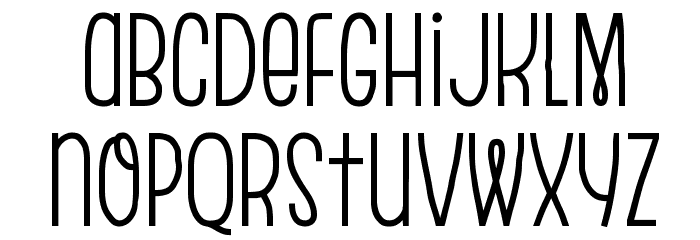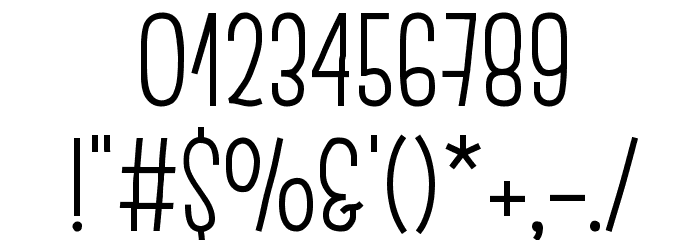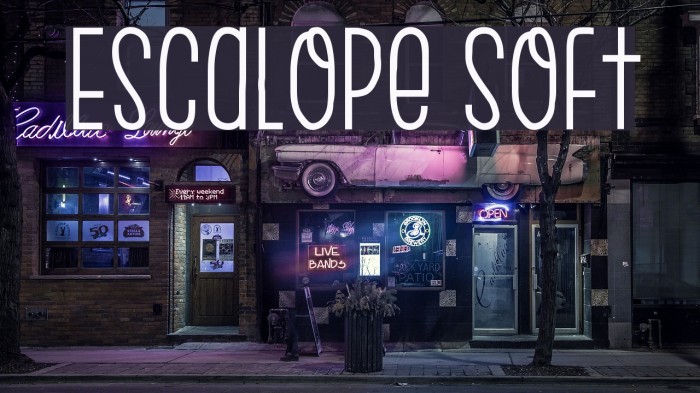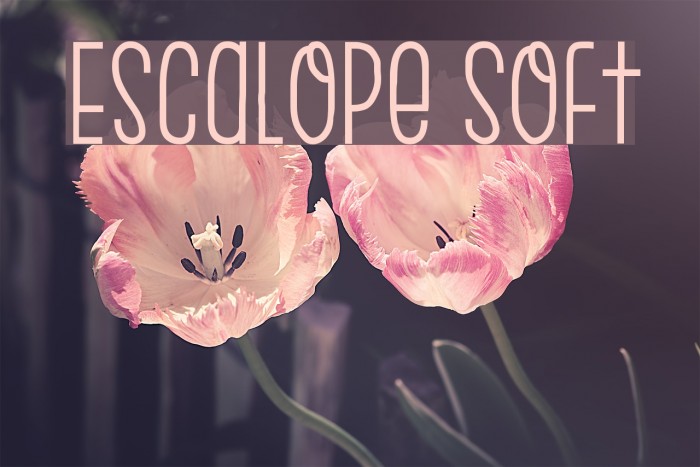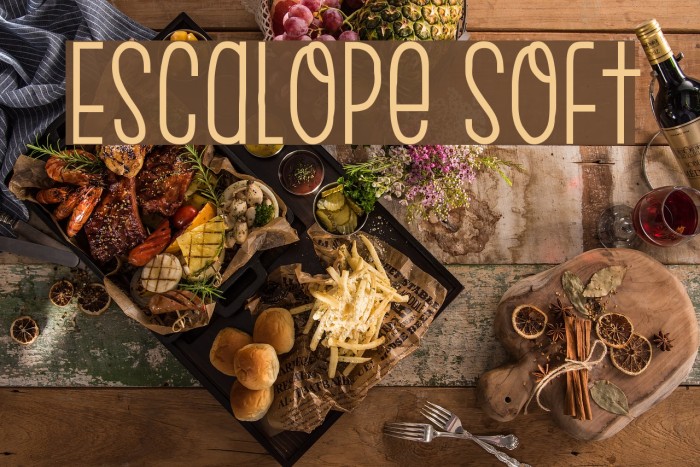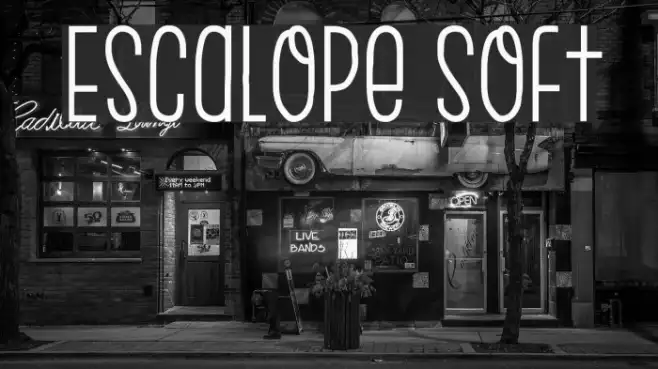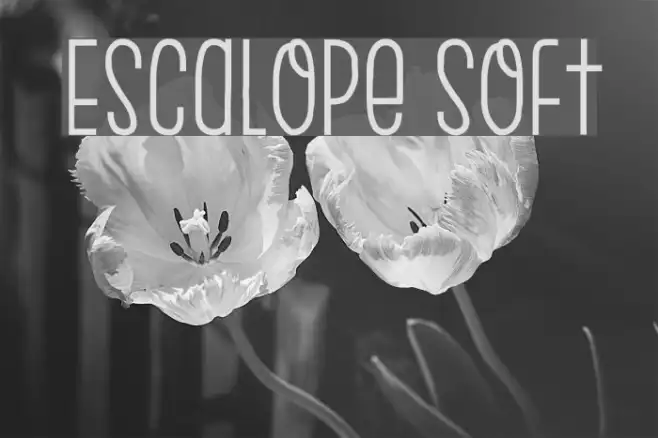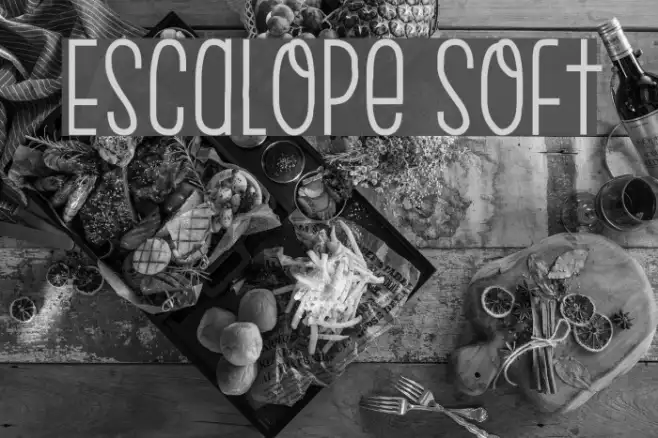
Escalope Soft Font
This font features a unique blend of modern and decorative elements, characterized by its tall, narrow letterforms and subtle curves. The uppercase letters are particularly elongated, giving a sense of elegance and sophistication. The lowercase letters maintain a consistent style, complementing the uppercase with their slightly rounded edges. Numbers and special characters are designed to match the overall aesthetic, ensuring a cohesive look across all text. The font's clean lines and minimalistic design make it versatile for various applications, while its distinctive style adds a touch of personality.
A modern, decorative font with tall, narrow letterforms and subtle curves.
- Proposed Projects: Ideal for branding, logos, headlines, and editorial design where a modern yet distinctive look is desired.